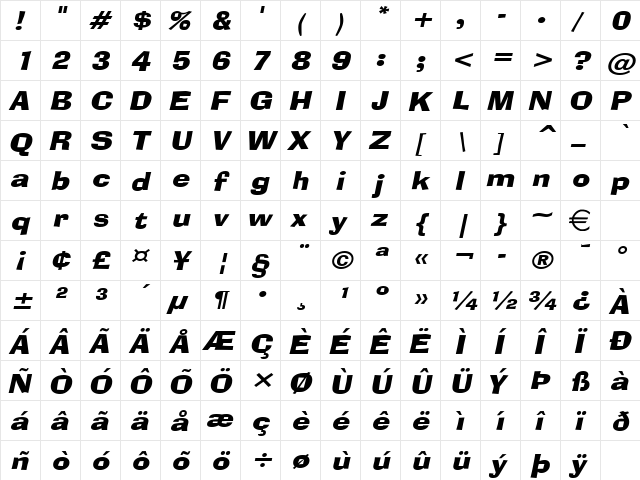
AlorWide Italic
Design Context for AlorWide Typeface
AlorWide offers clean, dependable letterforms without strong stylistic allegiance, making it a practical choice for designers who need flexibility. The slanted form adds forward momentum and visual energy.
Pro Tip: Try AlorWide for annotation and caption copy alongside an upright companion — the contrast in angle creates a dynamic but ordered typographic system.